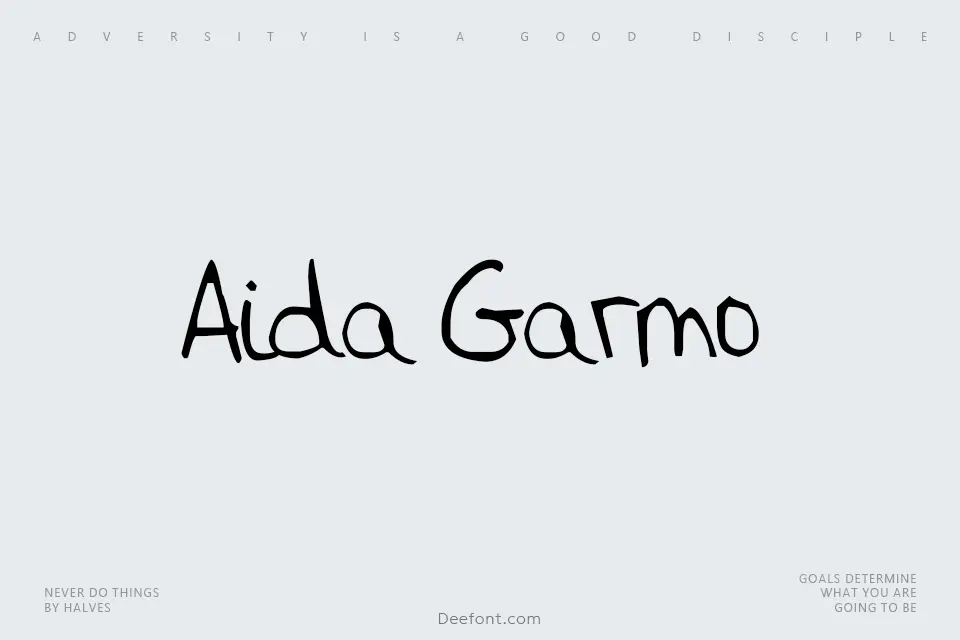
Aida Garmo Font
Aida Garmo is a delightfully casual handwritten font that brings warmth and personality to any design project. With its playful, organic letterforms and gentle stroke variations, this typeface excels in creating eye-catching posters, festive invitations, greeting cards, and decorative headlines. The font’s approachable, informal aesthetic makes it ideal for projects targeting creative audiences, gift designs, and whimsical branding. Perfect for scrapbooking, DIY artwork, and personal stationery.